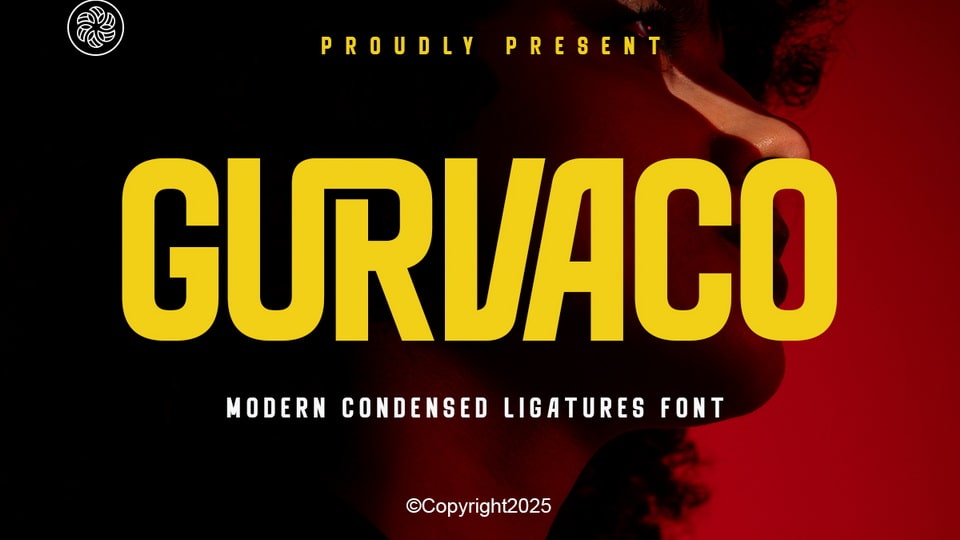
Download Gurvaco font, a modern condensed sans serif typeface designed to steal the show with ligatures style. Its meticulously crafted ultra-compressed letterforms pack a powerful punch.